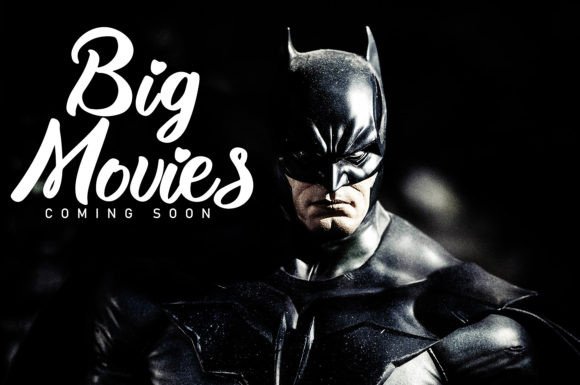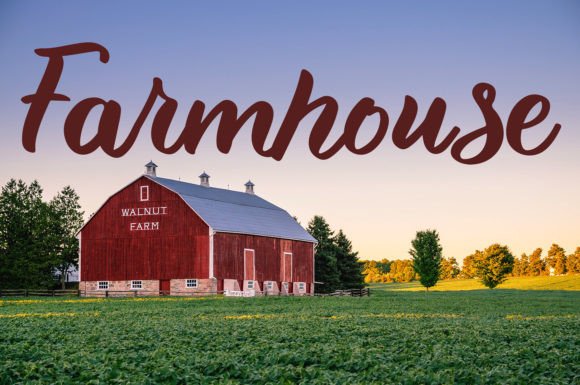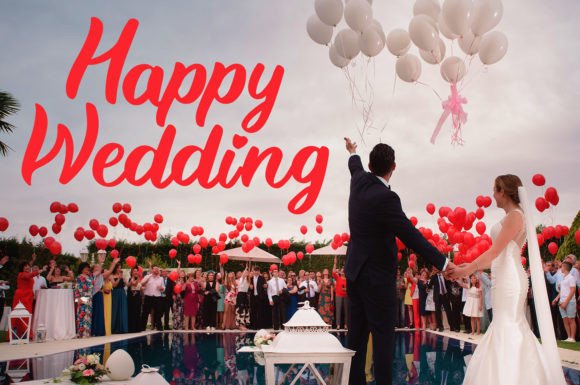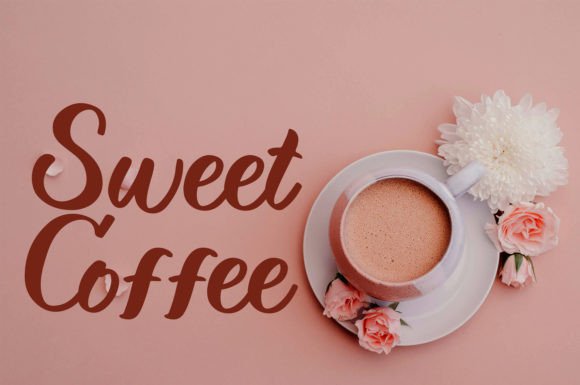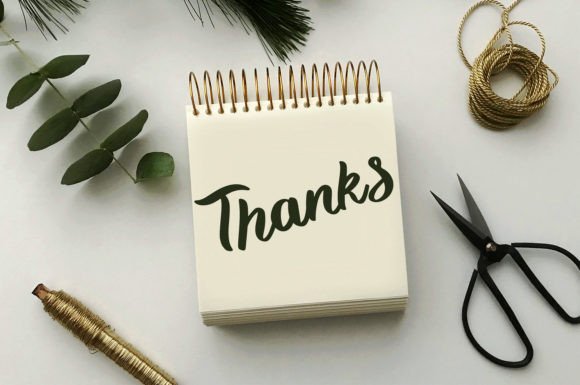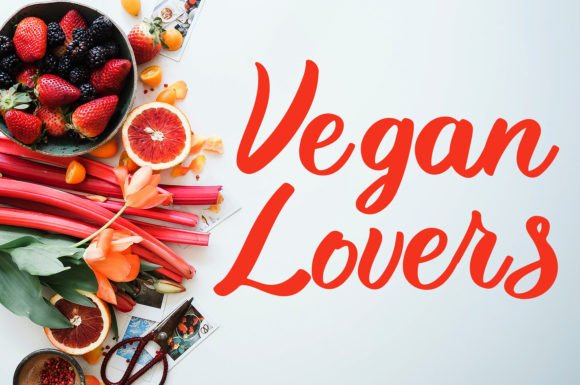
Astrology Font: The Perfect Script Type Font for Your Creative Projects
Are you a designer or crafter looking for a unique and elegant font to use in your projects? Look no further than the Astrology font. This beautiful script type font is perfect for a variety of creative endeavors, including wedding invitations, t-shirt printing, branding, and more. In this article, we’ll take a closer look at the Astrology font and explore its features, benefits, and uses.
What is Astrology Font?
Astrology font is a type of script font that is designed to resemble the elegant and flowing writing style of astrology charts and horoscopes. It features beautiful, cursive letters with intricate connections and flourishes, making it perfect for projects that require a touch of sophistication and elegance.
Features of Astrology Font
The Astrology font has several features that make it an excellent choice for designers and crafters. Some of its key features include:
- Elegant and flowing script: The Astrology font features a beautiful, cursive script that is perfect for projects that require a touch of elegance and sophistication.
- Intricate connections and flourishes: The font features intricate connections and flourishes that add to its beauty and elegance.
- High-quality design: The Astrology font is designed with high-quality vectors, making it perfect for printing and digital use.
- Easy to read: Despite its elegant and flowing script, the Astrology font is easy to read, making it perfect for use in a variety of projects.
Uses of Astrology Font
The Astrology font is a versatile font that can be used in a variety of creative projects. Some of the most popular uses for this font include:
- Wedding invitations: The Astrology font is perfect for wedding invitations, adding a touch of elegance and sophistication to your special day.
- T-shirt printing: The font is also great for t-shirt printing, making it perfect for creating custom tees with a unique and stylish design.
- Branding: The Astrology font can be used in branding, adding a touch of elegance and sophistication to your logo and marketing materials.
- Stationery: The font is also great for creating custom stationery, such as letterheads, business cards, and more.
Benefits of Using Astrology Font
There are several benefits to using the Astrology font in your creative projects. Some of the most significant benefits include:
- Unique and elegant design: The Astrology font features a unique and elegant design that will set your projects apart from the rest.
- High-quality vectors: The font is designed with high-quality vectors, making it perfect for printing and digital use.
- Versatile: The font is versatile and can be used in a variety of creative projects, from wedding invitations to t-shirt printing.
Tips for Using Astrology Font
Here are a few tips for using the Astrology font in your creative projects:
- Use it sparingly: While the Astrology font is beautiful, it can be overwhelming if used too much. Use it sparingly to add a touch of elegance and sophistication to your projects.
- Pair it with other fonts: The Astrology font pairs well with other fonts, such as sans-serif fonts. Experiment with different font combinations to find the perfect look for your project.
- Use it in digital and print projects: The Astrology font is perfect for both digital and print projects. Use it in everything from wedding invitations to social media graphics.
The Astrology font is a beautiful and elegant script type font that is perfect for a variety of creative projects. Its intricate connections and flourishes, high-quality design, and ease of use make it an excellent choice for designers and crafters. Whether you’re creating wedding invitations, t-shirt printing, or branding materials, the Astrology font is sure to add a touch of sophistication and elegance to your projects.